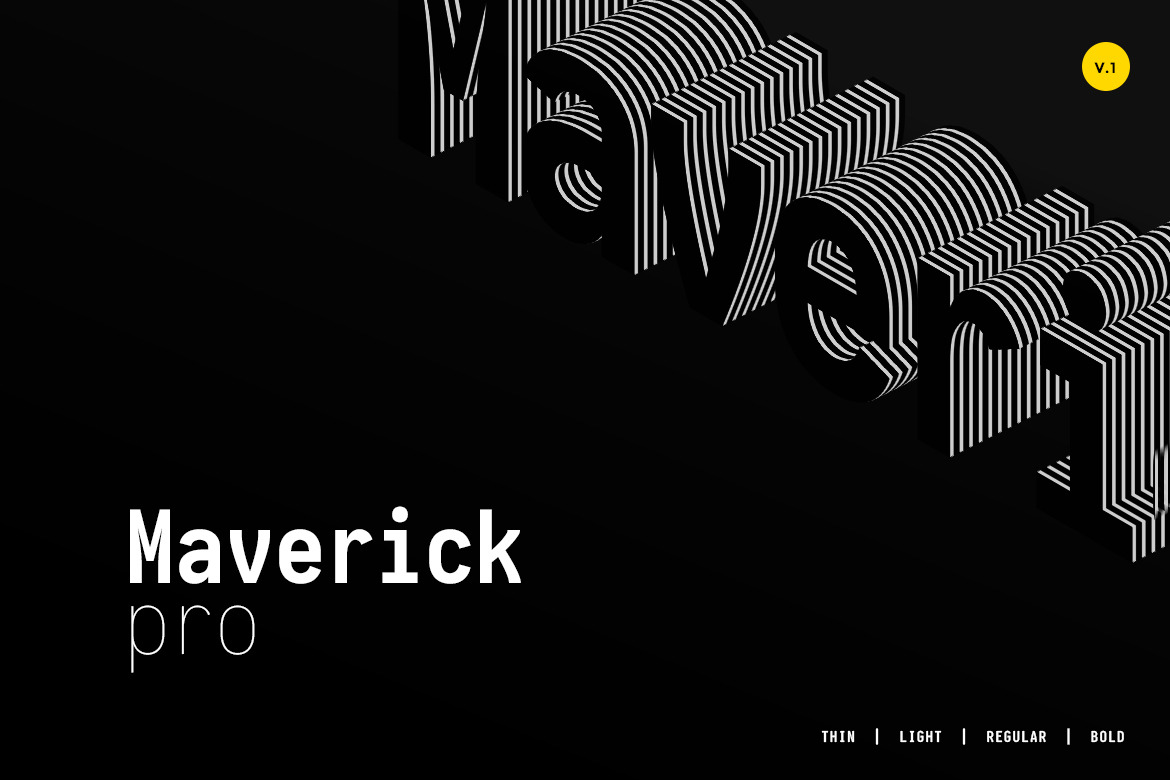
Maverick - Modern Webfont
Maverick Pro Typeface
Maverick Pro is perfect for branding projects, logo, wedding designs, social media posts, advertisements, product packaging, product designs, photography Brandings, invitation and Typography Designs.